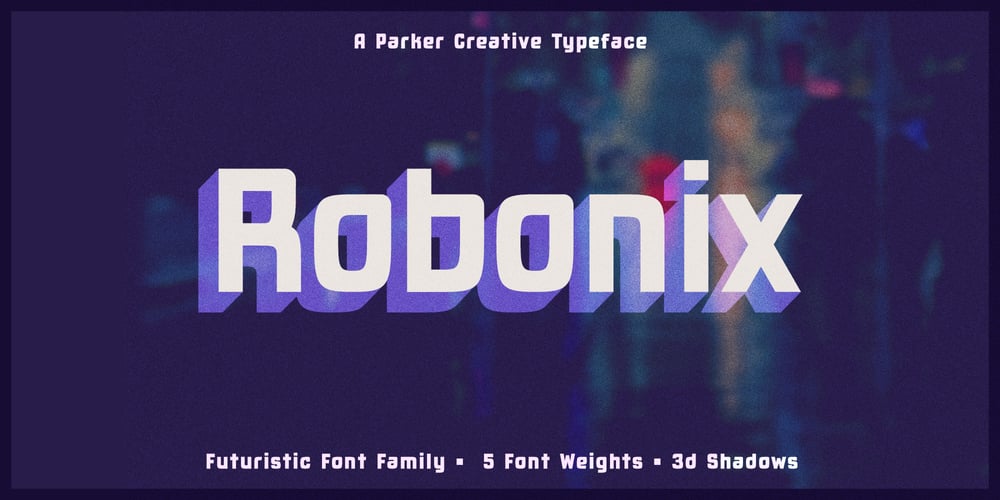
Robonix Font Family was designed by Alan Parker and published by Parker Creative. Robonix contains 10 styles and family package options. Robonix is a futuristic sans-serif font family that includes a custom shadow aesthetic for a layered 3d font effect. Inspired by the cyberpunk genre, Robonix is a versatile digital typeface that brings a modern geometric look and feel to your designs. Build beautiful logos, flyers, banners and more with perfect drop shadows quickly and efficiently.